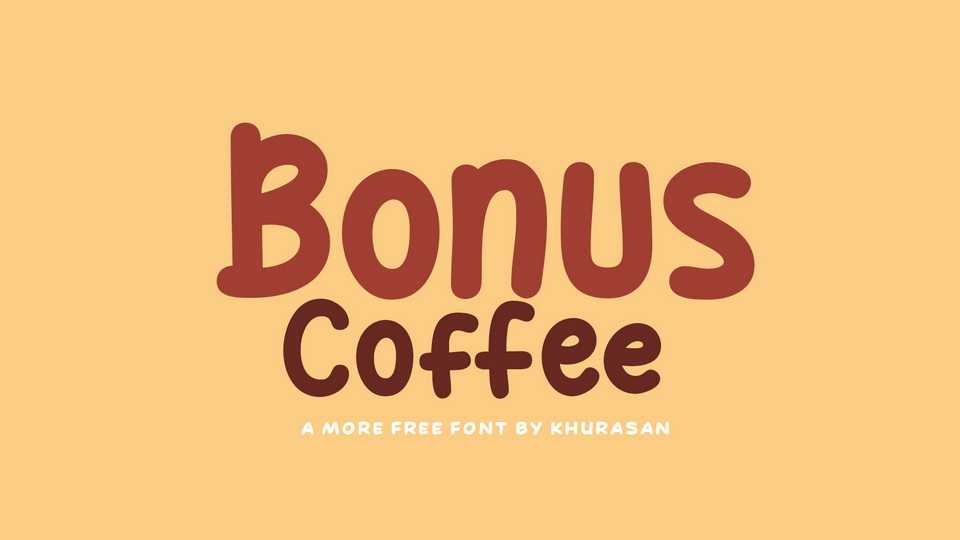
Download Bonus Coffee font, a hand lettered comic typeface filled with a cheerful, natural vibe. Add a playful and quirky touch to your designs with Bonus Coffee font.